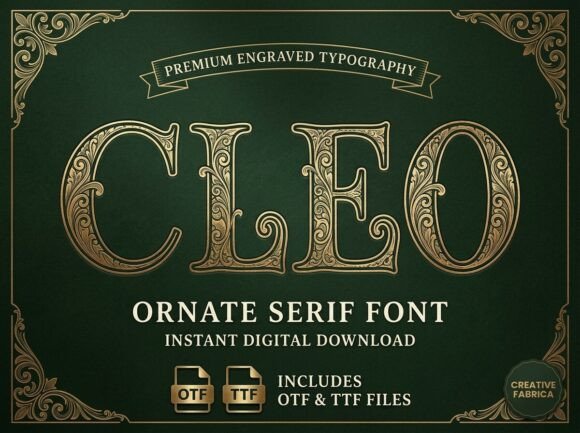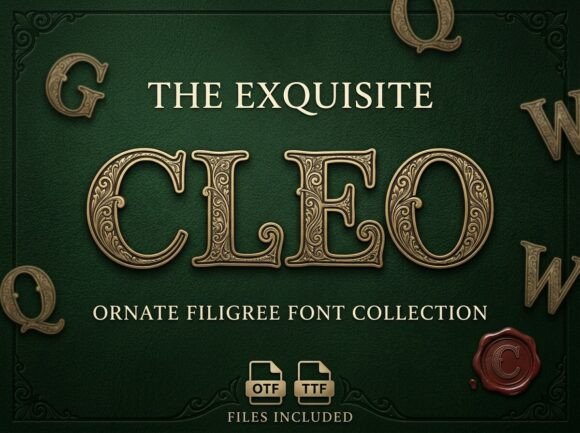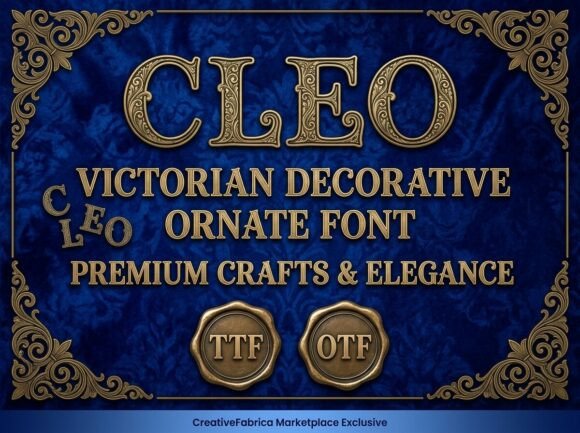
Introducing Cleo Font: The Ultimate Decorative Display Font
Are you tired of using the same old fonts for your designs? Do you want to make a statement and stand out from the crowd? Look no further than Cleo Font, a stunning decorative display font that’s designed to be the center of attention. With its unique artistic elements and strong visual personality, this font is perfect for creators who want to break away from the ordinary and add a touch of elegance to their work.
What Makes Cleo Font Special?
Cleo Font is a versatile decorative font that’s specifically designed for high-impact headlines, logos, and decorative initials. Its unique artistic elements and strong visual personality make it perfect for a variety of design projects, from bold headlines and artistic logos to creative packaging. Whether you’re a designer, craftsperson, or DIY enthusiast, Cleo Font is the perfect choice for anyone looking to add a touch of sophistication and elegance to their work.
Key Features of Cleo Font
• Unique Artistic Elements: Cleo Font features unique artistic elements that set it apart from other fonts. Its decorative strokes, swashes, and flourishes add a touch of elegance and sophistication to any design project.
• Strong Visual Personality: This font has a strong visual personality that’s sure to grab attention. Its bold and eye-catching design makes it perfect for headlines, logos, and other design elements that need to stand out.
• Versatile: Cleo Font is versatile enough for use in a variety of design projects, from bold headlines and artistic logos to creative packaging.
• Professional and Polished Finish: Despite its decorative nature, Cleo Font maintains a professional and polished finish that’s suitable for use in a variety of design applications.
IMPORTANT NOTE BEFORE PURCHASE: Cleo Font is an ALL-CAPS (Uppercase Only) display typeface. It does not include lowercase letters. It is specifically designed for high-impact headlines, logos, and decorative initials where every letter is a work of art. This means that you’ll only receive uppercase letters, numbers, and punctuation marks, making it perfect for use in titles, headings, and other design elements where you want to make a statement.
• Use it for Headlines: Cleo Font is perfect for use in headlines, titles, and other design elements where you want to grab attention.
• Create Artistic Logos: With its unique artistic elements and strong visual personality, Cleo Font is perfect for creating artistic logos that stand out from the crowd.
• Add a Touch of Elegance to Packaging: Whether you’re designing packaging for a product or creating a label for a craft project, Cleo Font is the perfect choice for adding a touch of elegance and sophistication.
• Unique Design: Cleo Font features a unique design that’s sure to grab attention and set your designs apart from the crowd.
In conclusion, Cleo Font is a stunning decorative display font that’s perfect for creators who want to break away from the ordinary and add a touch of elegance to their work. With its unique artistic elements, strong visual personality, and versatility, this font is perfect for a variety of design projects, from bold headlines and artistic logos to creative packaging. So why wait? Purchase Cleo Font today and start creating stunning designs that stand out from the crowd!